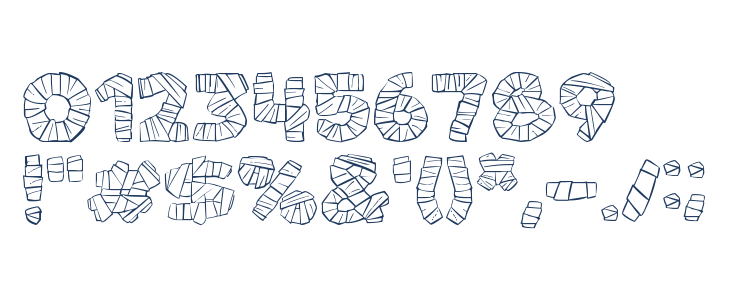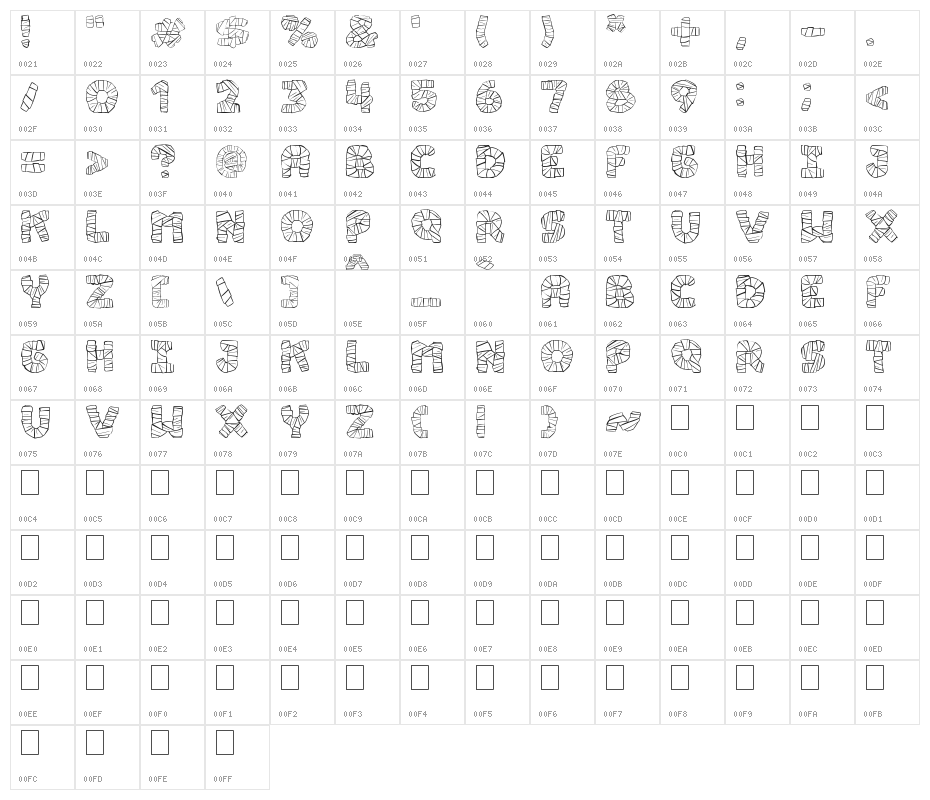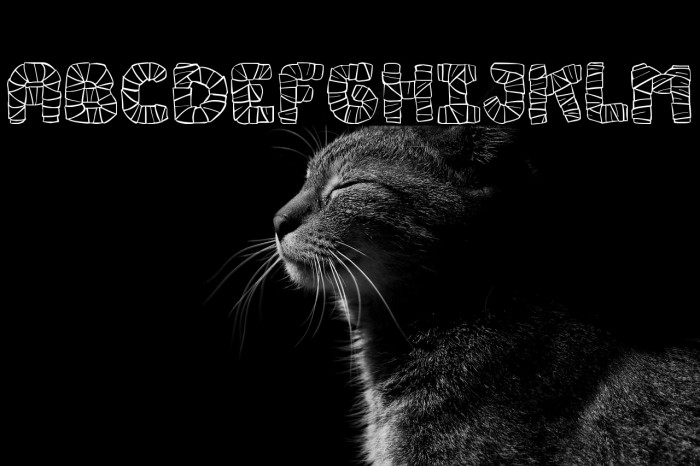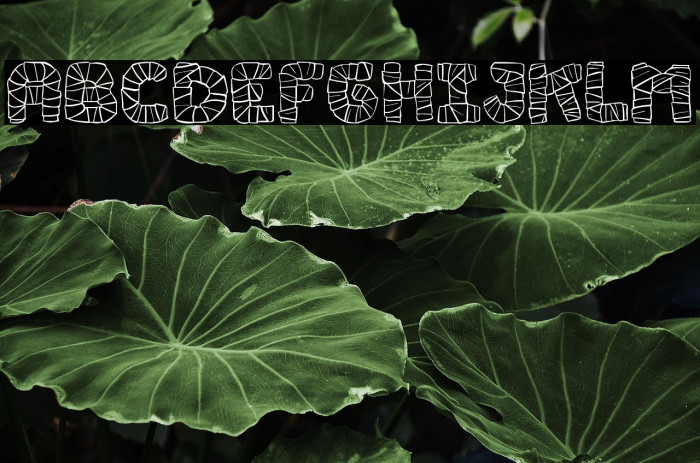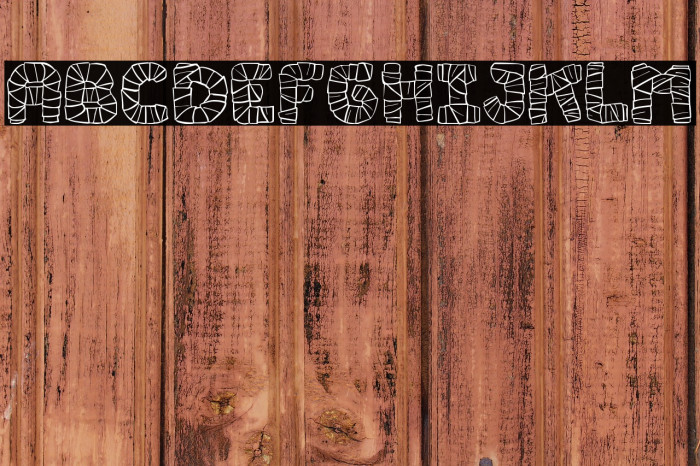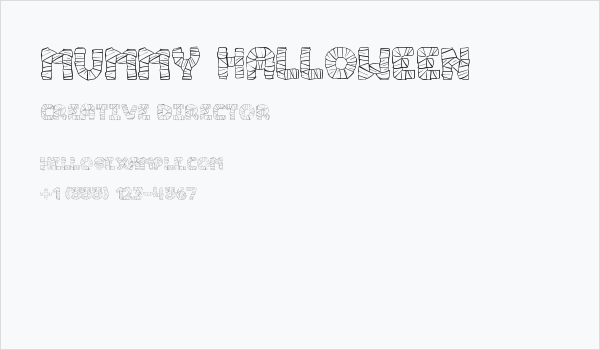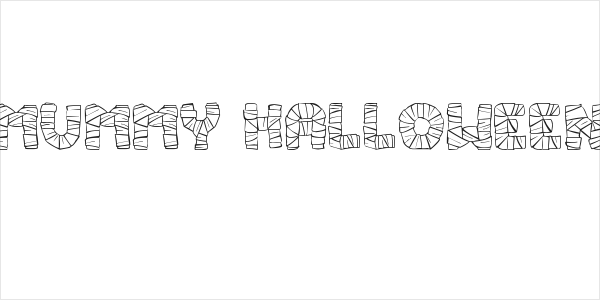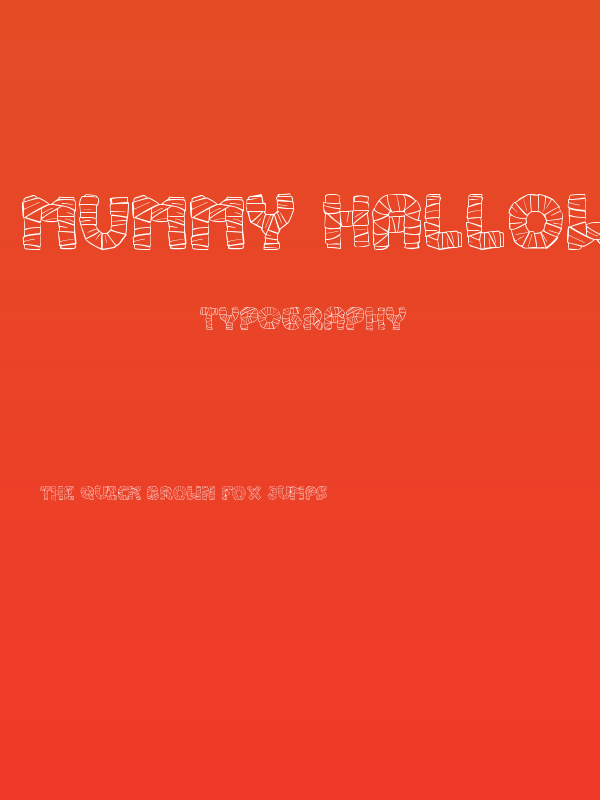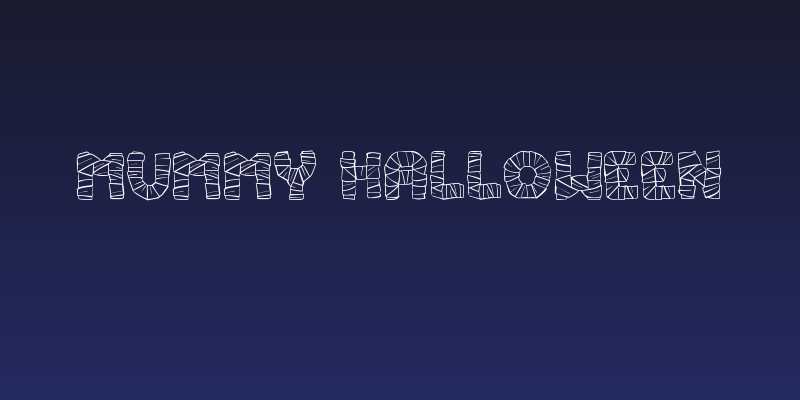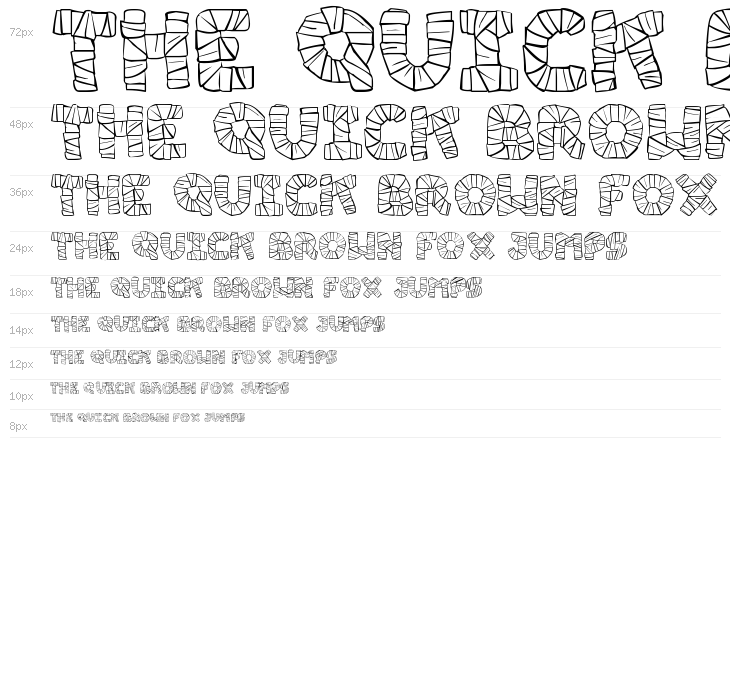
Mummy Halloween Font
Mummy Halloween Description
This font features a playful and spooky design, reminiscent of bandages wrapped around letters, evoking a Halloween or mummy theme. Each character is uniquely styled with overlapping lines and irregular shapes, creating a textured appearance that adds depth and interest. The font maintains a consistent thickness throughout, with each letter and number appearing as if wrapped in strips of cloth. This decorative style is perfect for themed events, especially those related to Halloween or other playful, spooky occasions. The characters are bold and eye-catching, making them suitable for headlines or titles where a fun and eerie atmosphere is desired.
| Proposed Projects | Ideal for Halloween party invitations, themed event posters, spooky greeting cards, and decorative signage. |